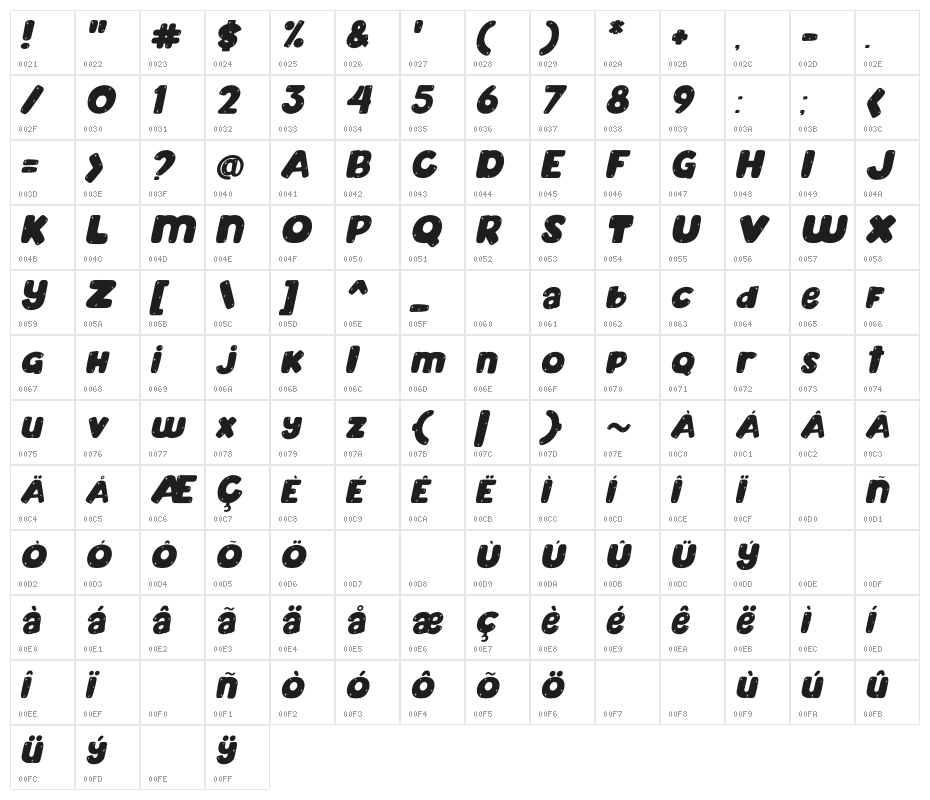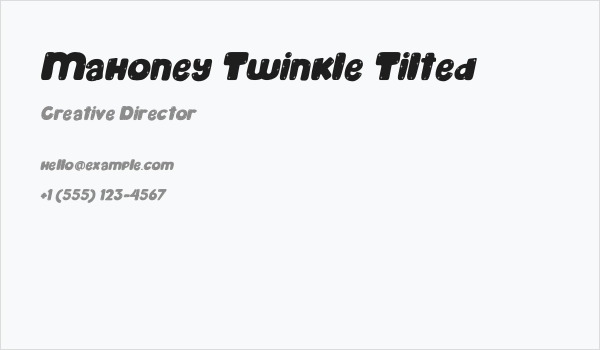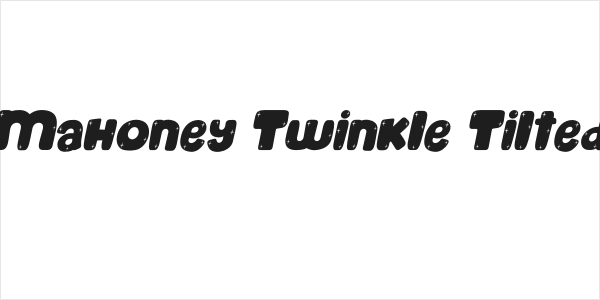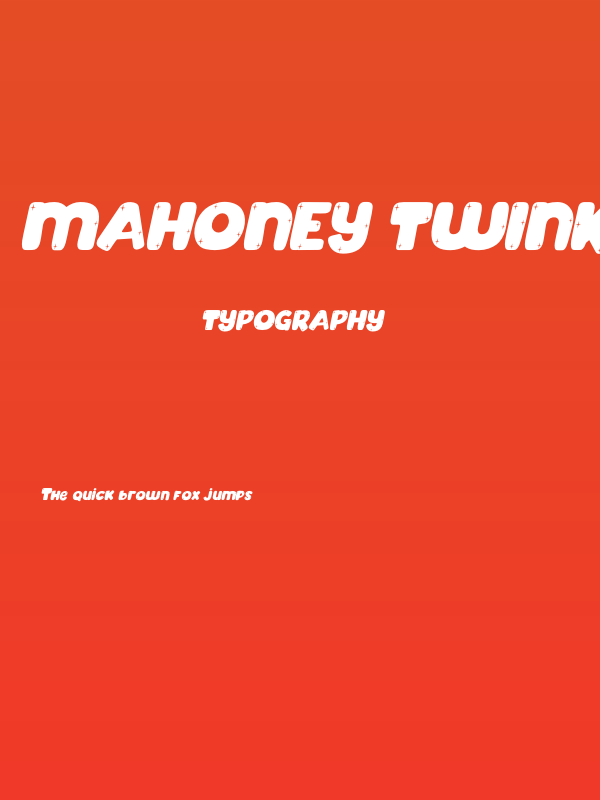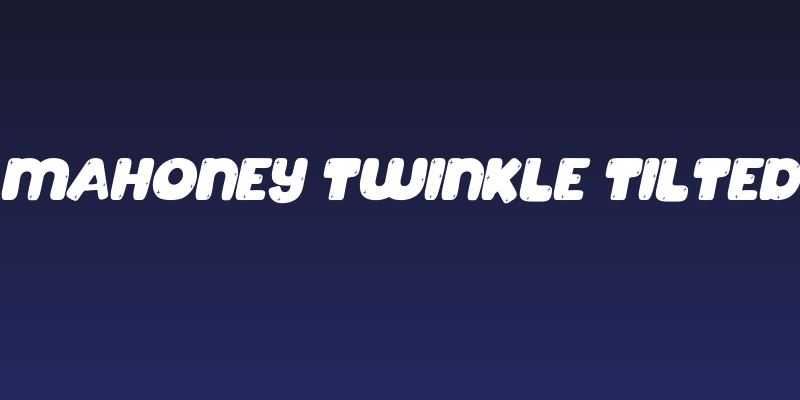
Mahoney Twinkle Tilted Font
Mahoney Twinkle Tilted Description
This playful and bold font features a unique design with star-like cutouts scattered throughout each character, giving it a whimsical and eye-catching appearance. The letters are rounded and thick, providing a strong presence while maintaining a friendly and approachable look. The uppercase and lowercase letters are consistent in style, with a slight tilt that adds a dynamic feel. Numbers and special characters follow the same design principles, ensuring uniformity across all elements. This font is perfect for projects that require a fun and engaging aesthetic.
| Proposed Projects | Ideal for children's books, party invitations, playful branding, and creative posters. |